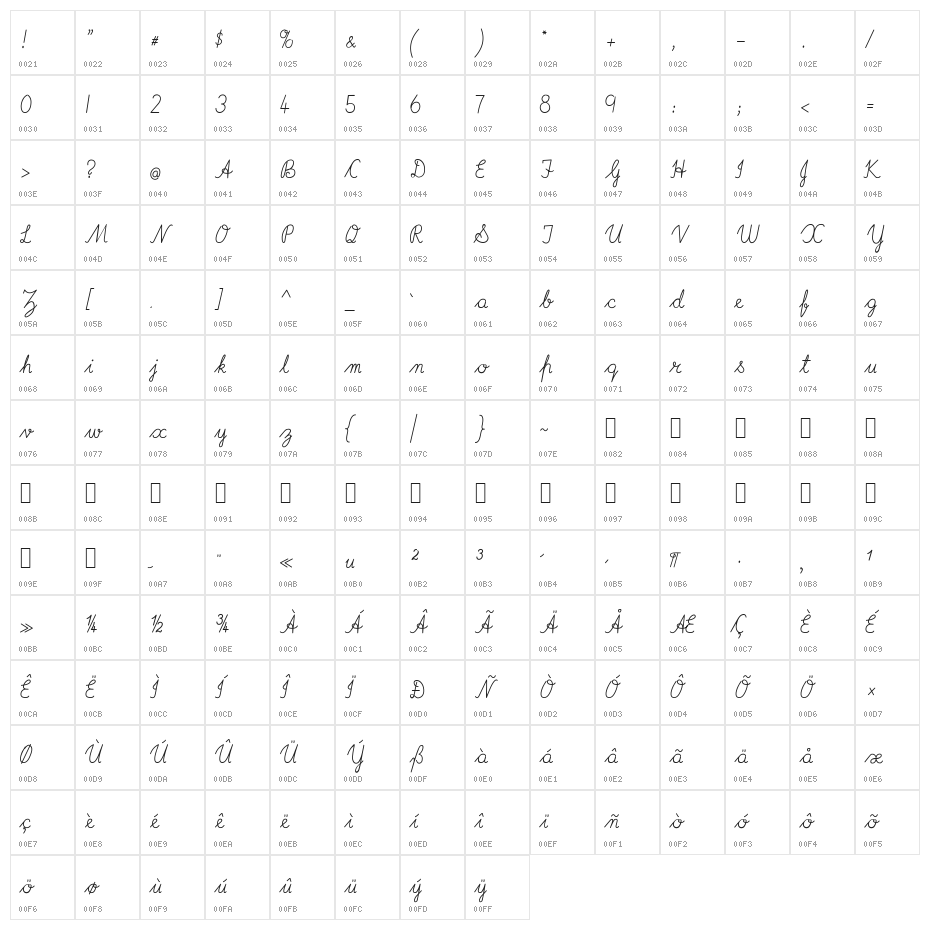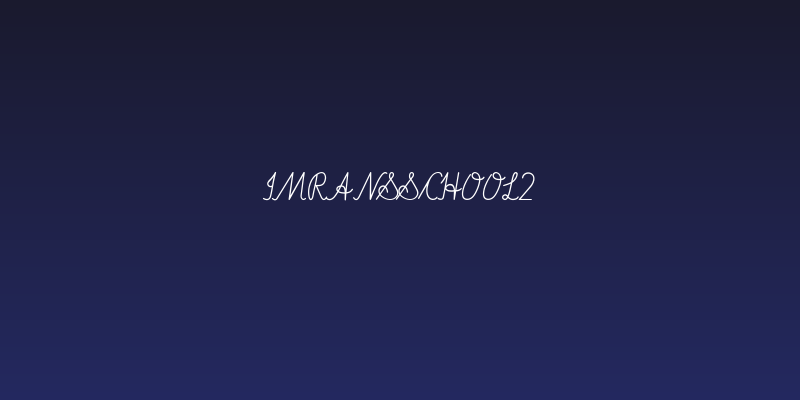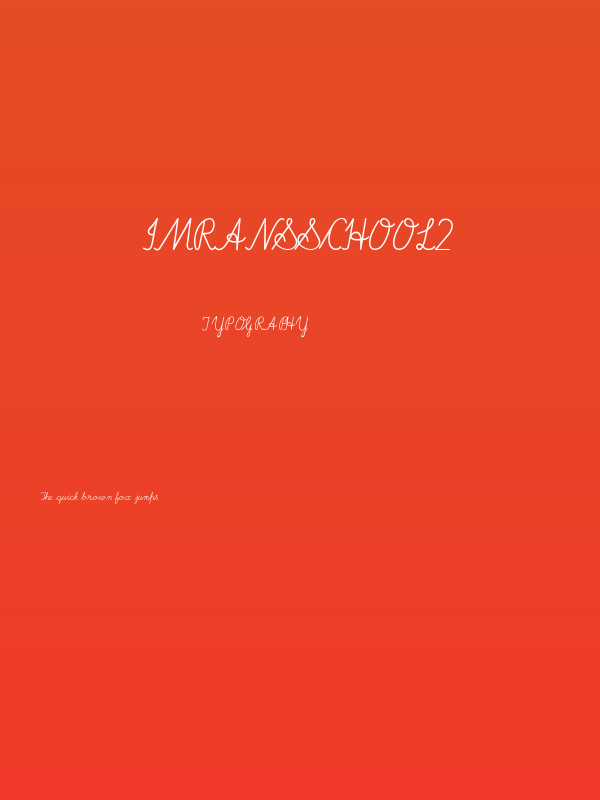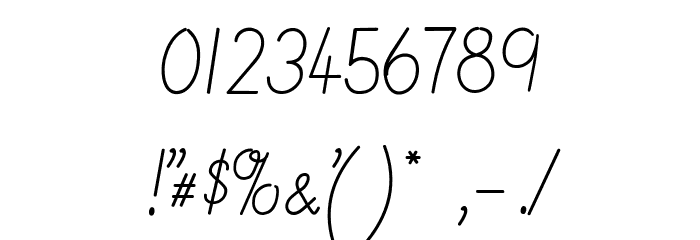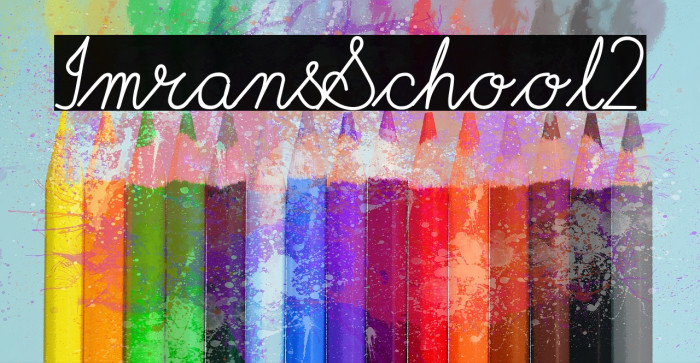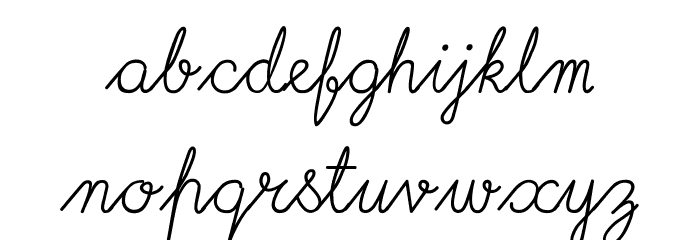
ImransSchool2 Font
ImransSchool2 Description
This font features a flowing, cursive style that mimics elegant handwriting. The characters are connected, creating a seamless and fluid appearance. The uppercase letters are slightly more ornate, with gentle curves and loops, while the lowercase letters maintain a consistent slant and smooth transitions. The numerals and special characters are designed to complement the overall script style, maintaining the same fluidity and grace. This font exudes a sense of sophistication and charm, making it ideal for projects that require a personal, handwritten touch.